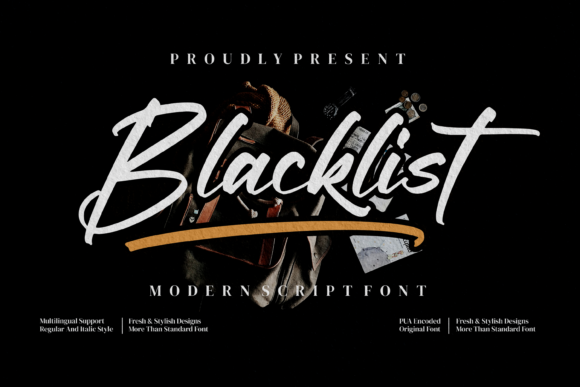
Introducing Blacklist Font: Elevate Your Designs with a Casual and Trendy Handwritten Style
In the world of typography, fonts play a crucial role in conveying the tone and personality of a design. For designers and crafters looking to add a stylish touch to their projects, the Blacklist font is an excellent choice. This casual and trendy handwritten font is crafted to give your headlines and logotype projects a strong, confident, and dynamic look that’s sure to capture attention.
The Charm of Blacklist Font
Blacklist font reads as strong, confident, and dynamic, making it perfect for designers who want to add a touch of personality to their work. The font’s casual and handwritten style gives it a nostalgic feel that’s reminiscent of classic designs from the past. Whether you’re working on a logo, headline, or any other design project, Blacklist font is sure to add tons of character and charm.
Key Features of Blacklist Font
- Casual and Trendy Style: Blacklist font boasts a casual and trendy handwritten style that’s perfect for designers who want to add a touch of personality to their work.
- Strong and Confident: The font reads as strong, confident, and dynamic, making it ideal for headlines and logotype projects.
- Nostalgic Character: Blacklist font has a nostalgic feel that’s reminiscent of classic designs from the past.
- Versatile: The font is versatile and can be used for a wide range of design projects, from logos and headlines to posters and packaging.
Why Choose Blacklist Font?
There are many fonts available for designers and crafters, but Blacklist font stands out from the rest. Here are a few reasons why:
- Unique Style: Blacklist font has a unique and distinctive style that’s sure to set your designs apart from the rest.
- High-Quality: Blacklist font is a high-quality font that’s designed to produce crisp and clear results, even at small sizes.
Tips and Tricks for Using Blacklist Font
Here are a few tips and tricks for using Blacklist font:
- Use it for Headlines: Blacklist font is perfect for headlines and titles, where its strong and confident style can really shine.
- Pair it with Other Fonts: Experiment with pairing Blacklist font with other fonts to create a unique and interesting look.
- Use it for Logos: Blacklist font is also great for logos, where its casual and trendy style can help to create a memorable brand identity.
In conclusion, Blacklist font is a casual and trendy handwritten font that’s perfect for designers and crafters looking to add a stylish touch to their projects. With its strong and confident style, nostalgic character, and versatility, Blacklist font is sure to become a go-to choice for designers and crafters around the world.
Whether you’re working on a logo, headline, or any other design project, Blacklist font is a great choice. So why not give it a try and see the difference it can make in your designs?